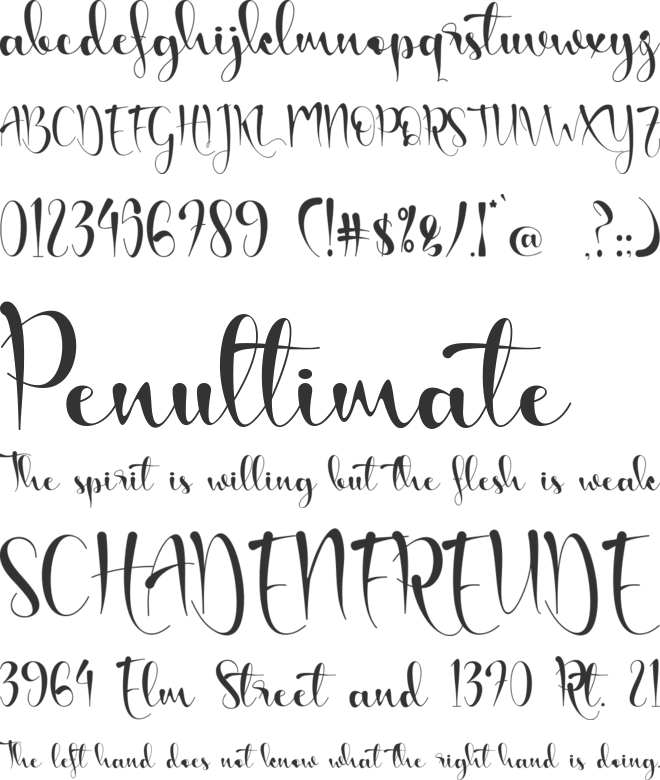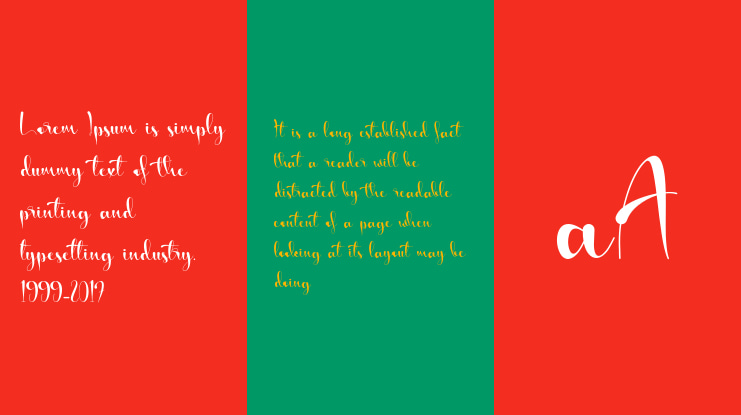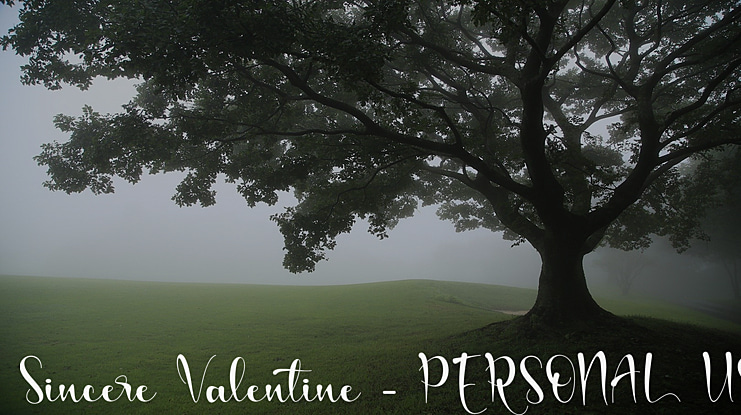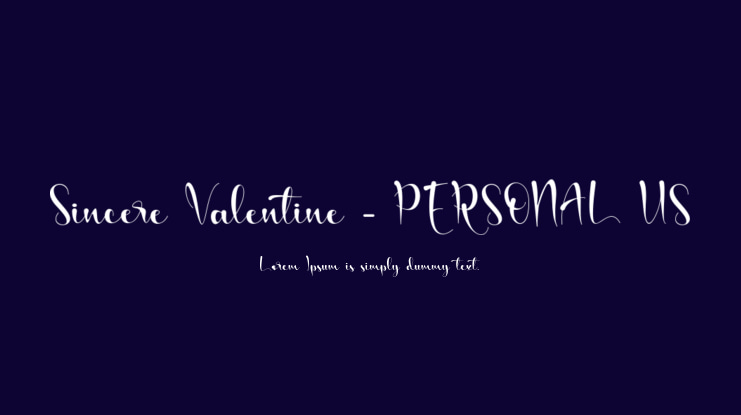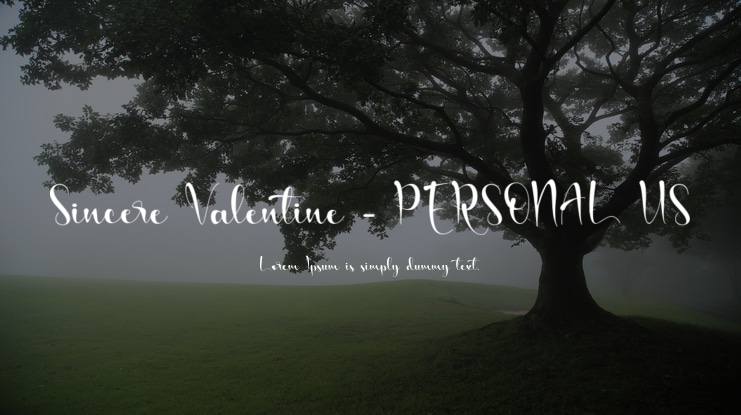
Sincere Valentine font is modern handwriting that is made with sincerity and produces a work of a font filled with love.
Celebrate Valentine's Day with Sincere Valentine, make your day full of love with your loved ones!
this font is a romantic and festive handwritten font. Its natural and unique style makes it incredibly fitting to a large pool of designs.